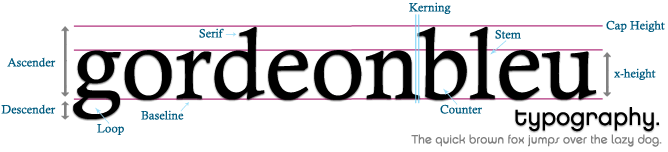
GordeonBleu Typography
Hi. I'm Gordon, and I have a fascination for the beautiful art behind font designs. While the importance of fonts to the asthetics and appeal of a product, logo, or webpage may be often overlooked, well-designed fonts can enhance the desired theme of a presentation.
I don't remember when my fascination for fonts began. Perhaps there wasn't really any starting point. Instead, it was probably a gradual development of interest for this area. One thing is for sure though - the formation of an official general fonts fan site was long overdue. So here I go. Inspired by the wonderful variety of beautiful professionally designed fonts, I bring you GordeonBleu Fonts.
Intro: The Fonts of GordeonBleu
Over the years, the standard font style I used across GordeonBleu pages changed. Examples include Verdana 10pt, Tahoma 8pt, Verdana 8pt, and Lucida Grande 8pt. Remnants of earlier font styles, like Jester and Mead Bold, linger around in various GordeonBleu sections that I have not updated lately. Also, with my somewhat recent acceptance of anti-aliasing, (after three years of shying away from it), I find myself designing webpages with anti-aliasing in mind, especially for Mac OS X (whose anti-aliasing is far superior to Windows XP's ClearType).
Of course, I've always had to keep alternative fonts in mind for webpages, just in case a user does not have the first font in the list. I usually try to choose a standard font as at least the second, so my lines usually look something like: font-family: lucida grande, tahoma, verdana, arial, helvetica, sans serif. (when I'm displaying sans serif fonts anyway).
I keep telling myself that I'll try to learn how to create a font set. There might be freeware or shareware out there, but I haven't looked hard. But until I do, I'll continue to collect and admire...fonts.
Handwriting Fonts: Fonts From The Hand of Gordon
For years, on and off, I'd wanted to create my own font, and in June 2005, I finally had the chance. Using a tablet computer and a font program called the My Font Tool powertoy for Windows XP Tablet Edition, I was able to create my first font. However, the font became jagged once I compiled it. I'm still working on somehow smoothing it out, if the program lets me. I also haven't yet figured out how to create fonts for Mac OS X. Anyway, I'm not going to release the compiled font file until I've fixed it up first.